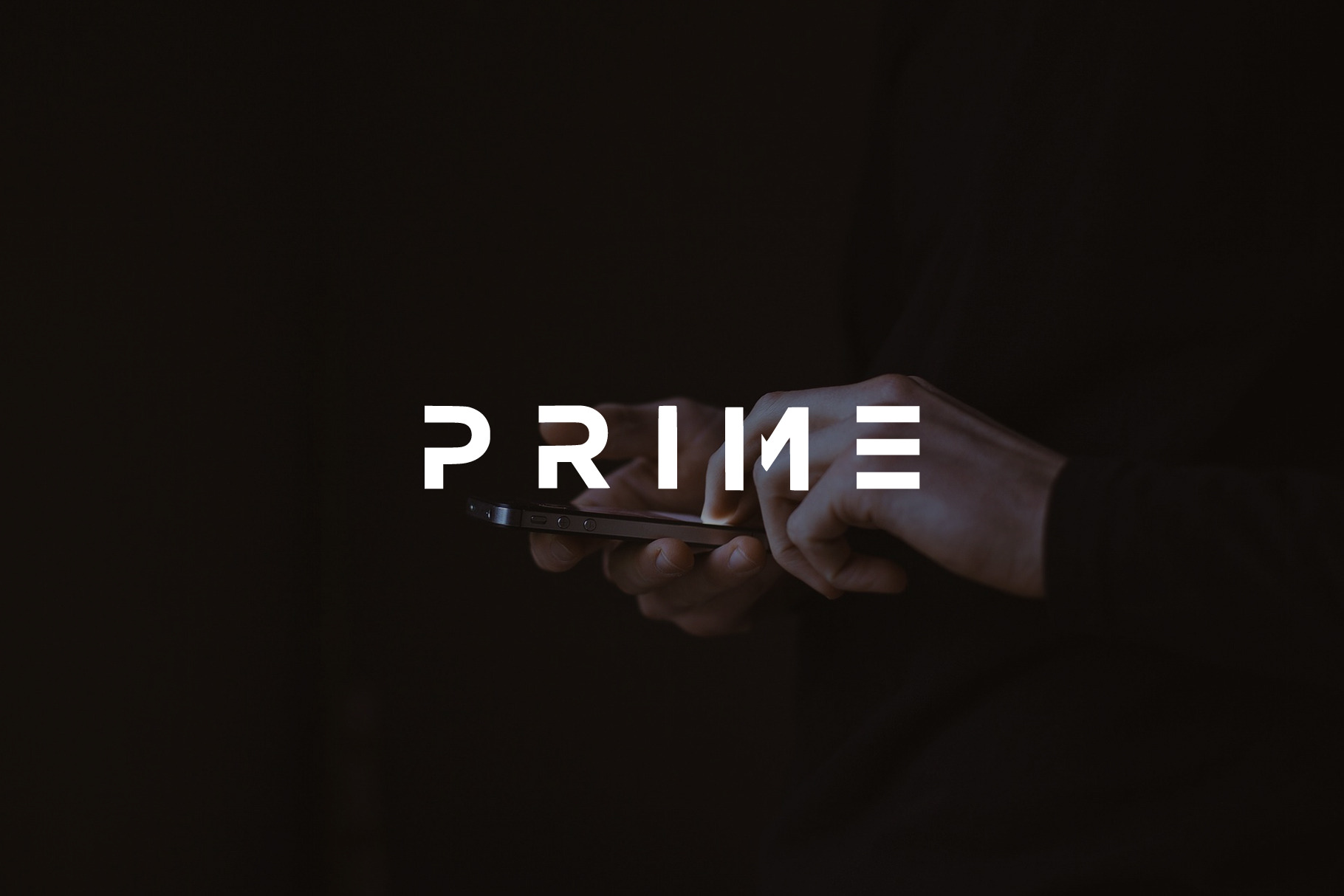
Prime - modern bold Sans Serif Font
A modern bold sans serif vector font
a font with a futuristic edge, geometric corners, perfect for technology theme